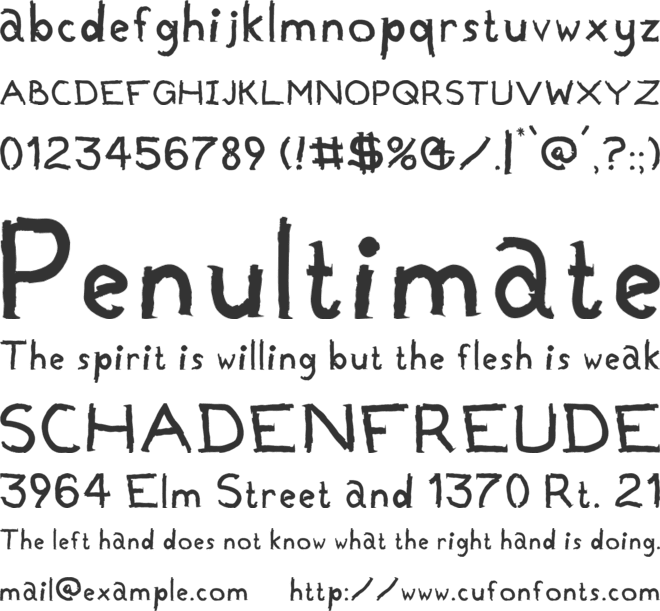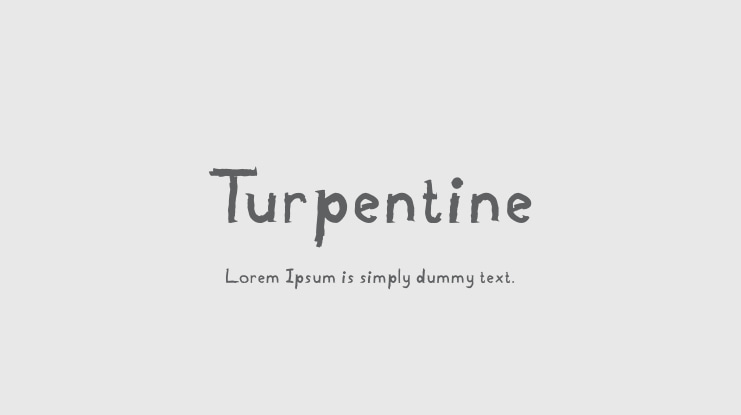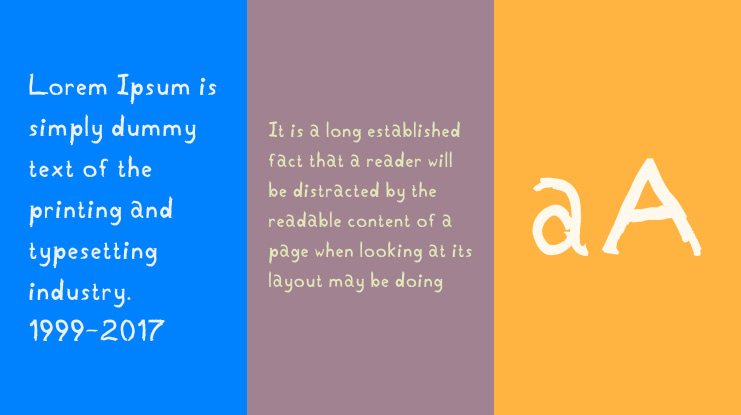
This font is a bit of an experimental one: while preparing for a commissioned font, I got my hands on some new digital brushes and decided to play around with them. It came out beautifully in Illustrator...but didn't quite translate to my font making program like I intended. Instead, it took on a rough, gritty and eerie look that I liked for different reasons.Needless to say, this goes with a lot of rough, horrific and grimy things. I hope you'll enjoy.